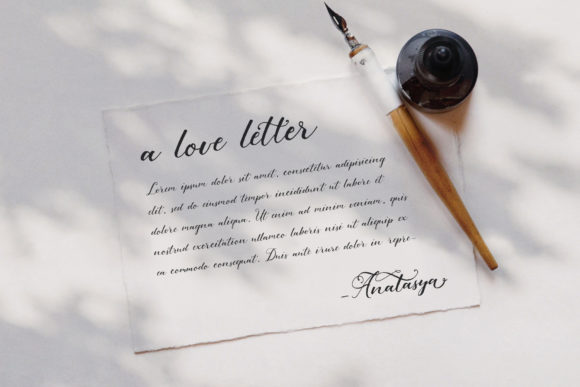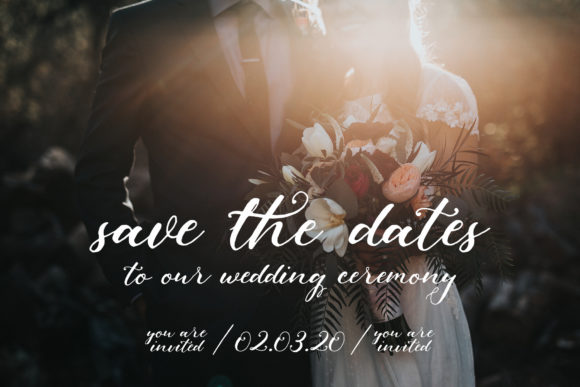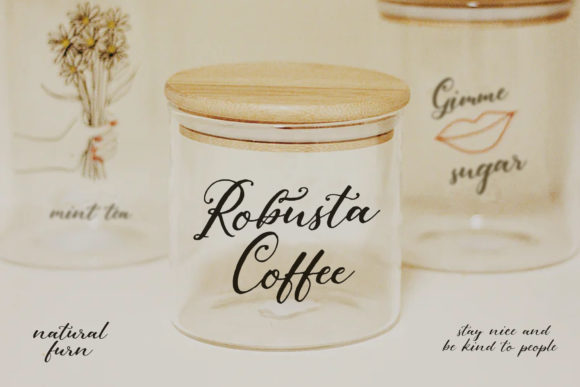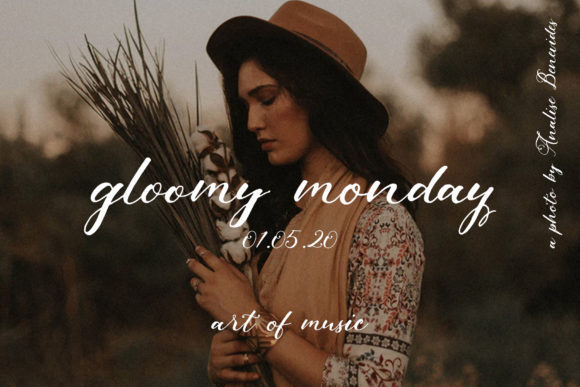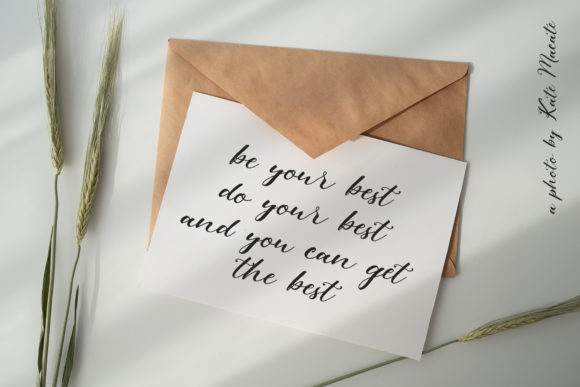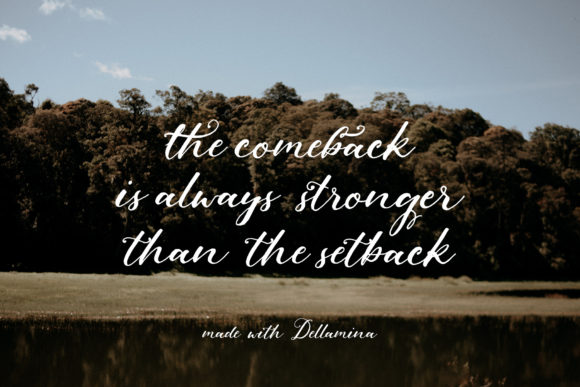
The Perfect Script for Your Masterpiece: Dellamina Font
Do you remember the moment when you finally found the perfect font for your design project? The one that makes your vision shine, and your audience swoon? For many designers, this moment is a game-changer. It’s the difference between a good design and an exceptional one. And for those who have discovered the Dellamina Font, they know exactly what we’re talking about.
Dellamina Font is an exquisite, delicate, and timeless handwritten font that adds a touch of elegance to any design. Whether it’s a wedding invitation, a thank you card, or a logo, this font brings a sense of sophistication and charm to every project. As a designer, you know how valuable it is to have the right tools at your disposal. With Dellamina Font, you can create truly unforgettable designs that leave a lasting impression.
Dellamina Font Key Features
- Unique Characteristics: Dellamina Font features a unique blend of modern and vintage elements, with intricate details and ornate flourishes.
- Font Style: Script, Calligraphy
Dellamina Font Review
Overall, I’m quite impressed with the Dellamina font. It’s a beautiful, elegant script font that’s perfect for creating a luxurious and sophisticated feel in your designs.
Here are some things that work well:
- ✨ Elegant and refined design: The Dellamina font has a beautiful, flowing design that’s perfect for creating a high-end feel in your designs.
- ✨ Great for headlines and titles: The font is ideal for use in headlines and titles, where you want to draw attention and create a sense of drama.
However, there are a few limitations to be aware of:
- ⚠️ Limited character set: The Dellamina font has a limited character set, which may make it difficult to use for longer blocks of text.
- ⚠️ May not be suitable for body text: Due to its elegant and refined design, the Dellamina font may not be the best choice for body text, where readability is key.
Overall, I’m really impressed with the Dellamina font. While it may have a few limitations, its elegant design and refined feel make it a great choice for creating a high-end, sophisticated look in your designs.
Dellamina Font Practical Application Guide
Getting the Most Out of Dellamina Font
Compared to Dellamina Font, Great Vibes Font has a more refined and polished look, making it suitable for more formal occasions. Dellamina Font, on the other hand, has a more playful and whimsical feel.
Compared to Dellamina Font, Carolyna Pro Font has a more modern and sleek look, making it suitable for more contemporary designs. Dellamina Font, on the other hand, has a more vintage and romantic feel.